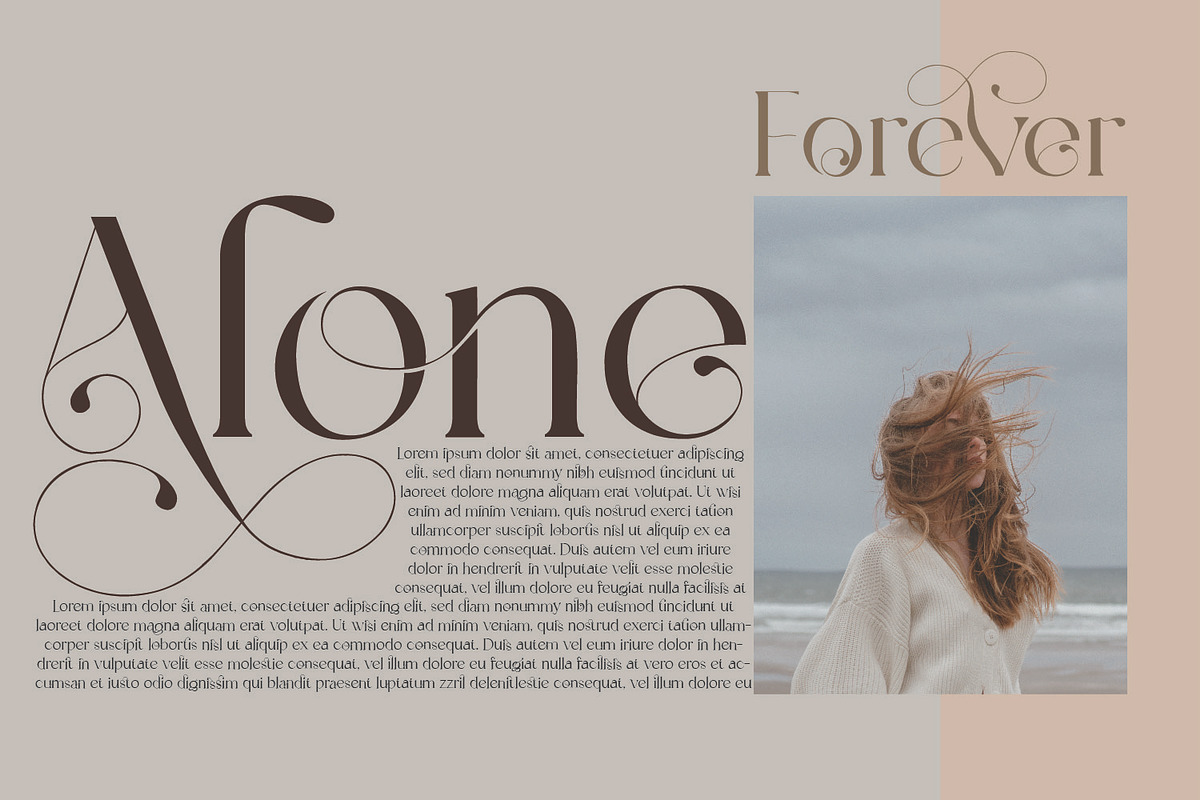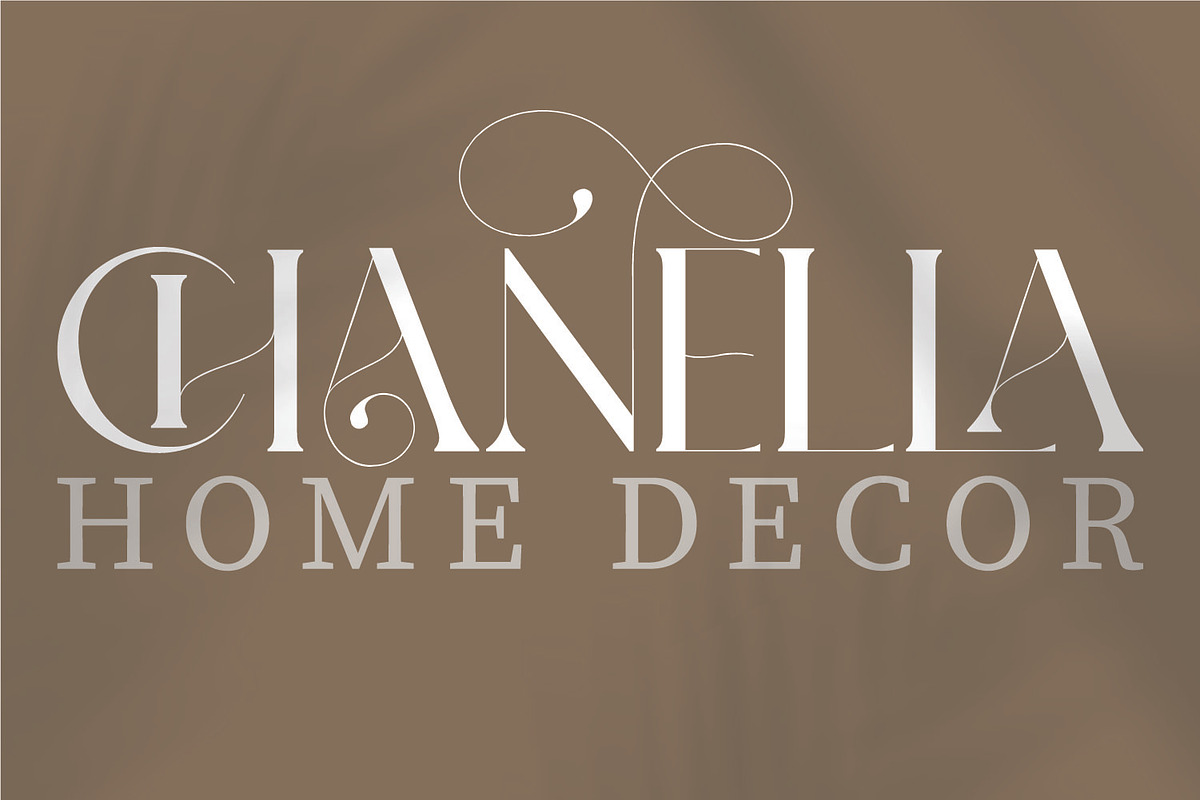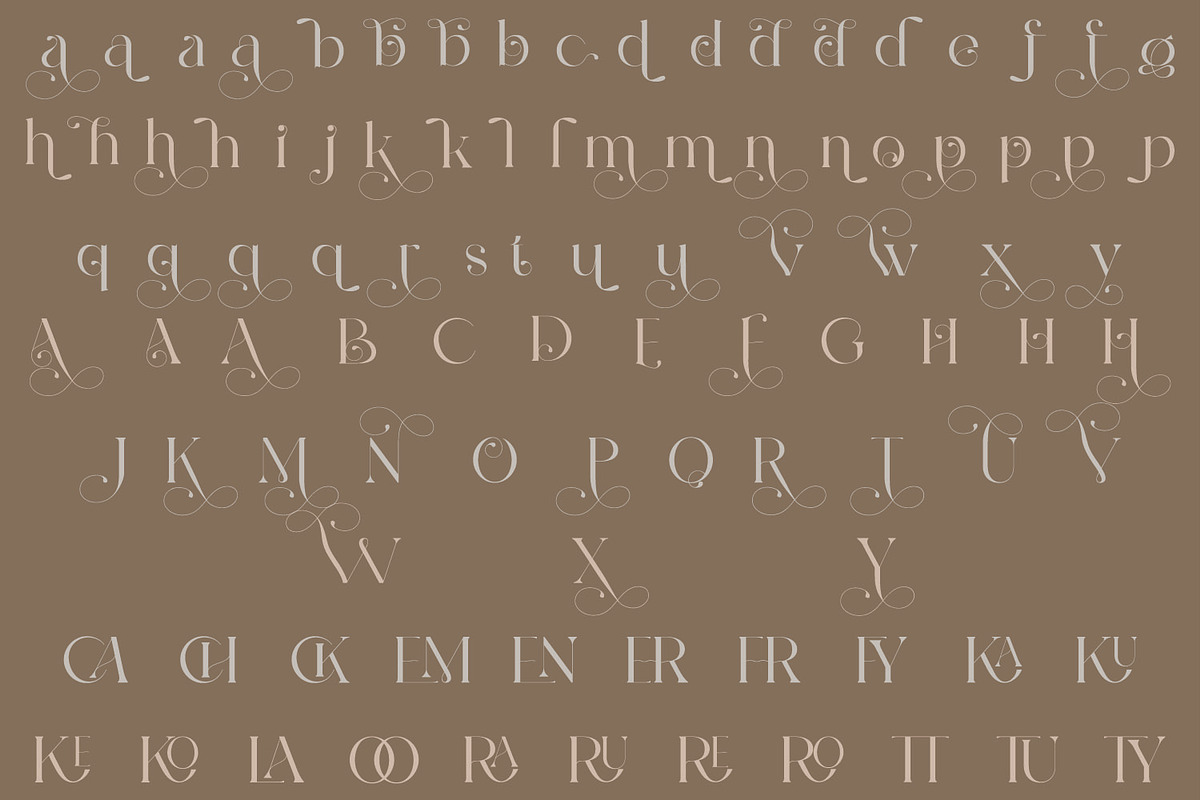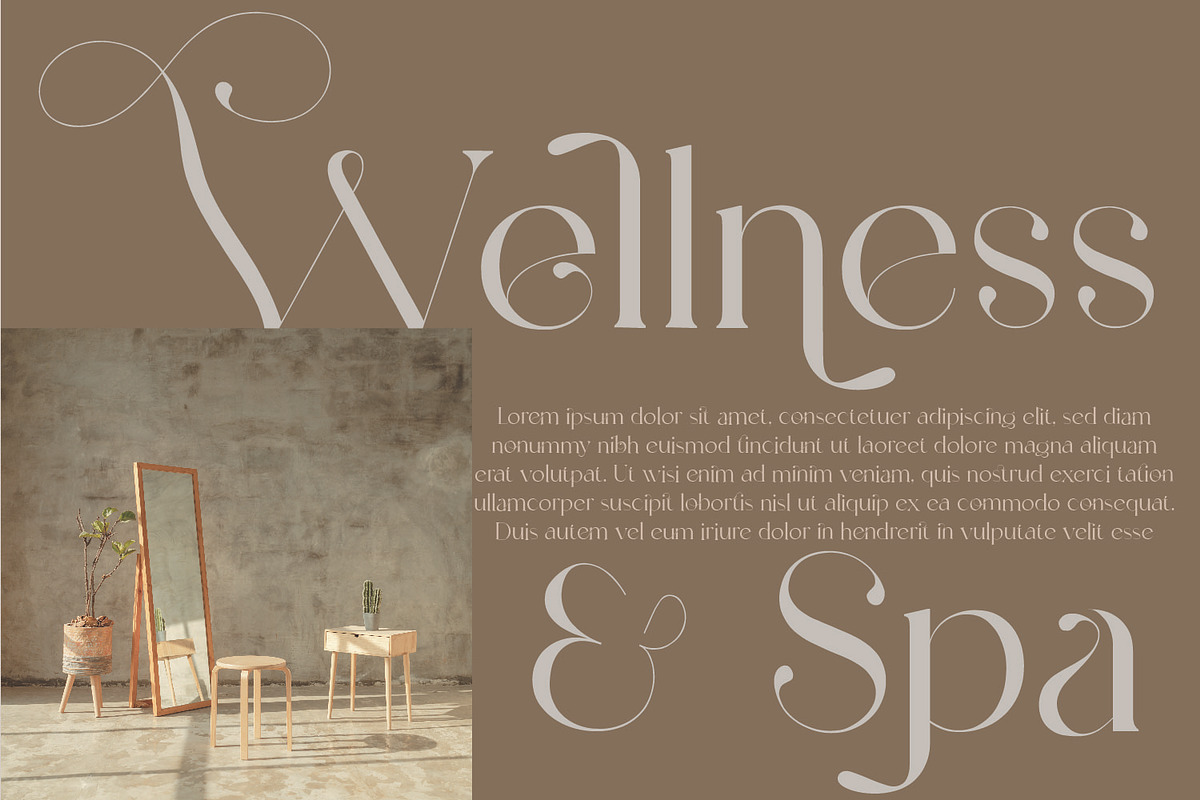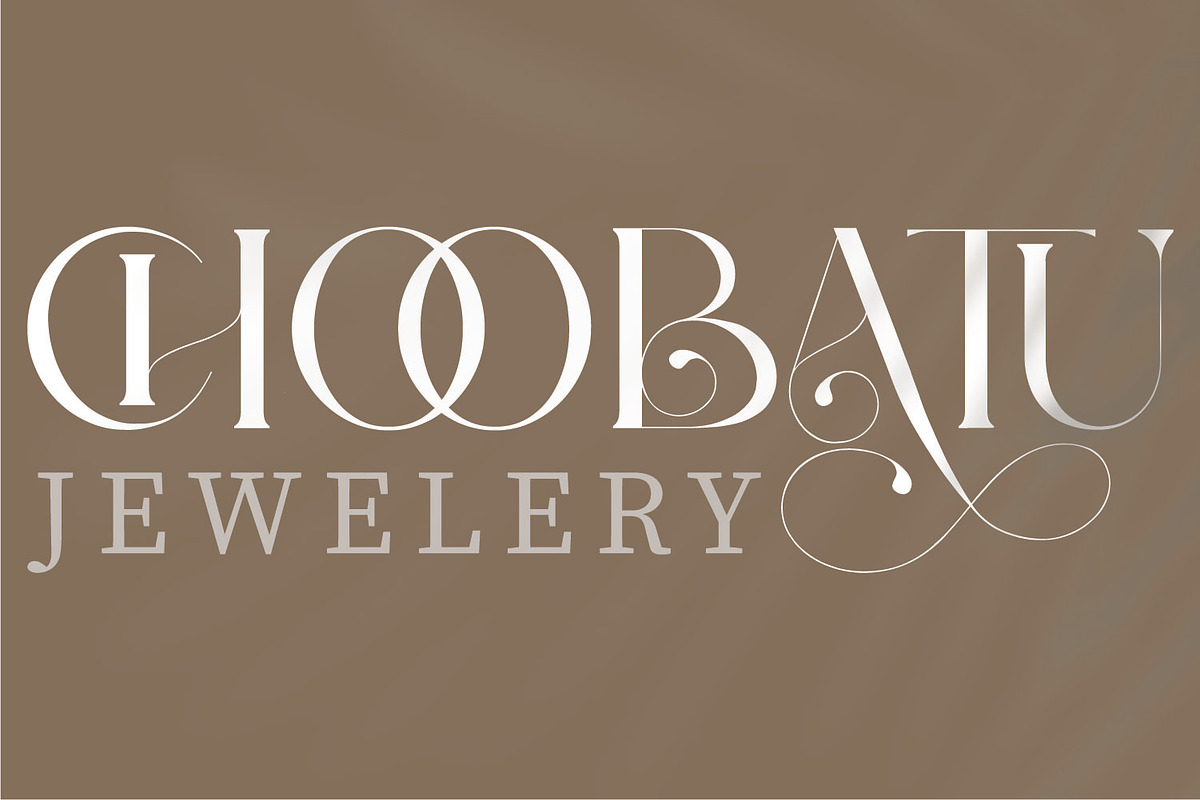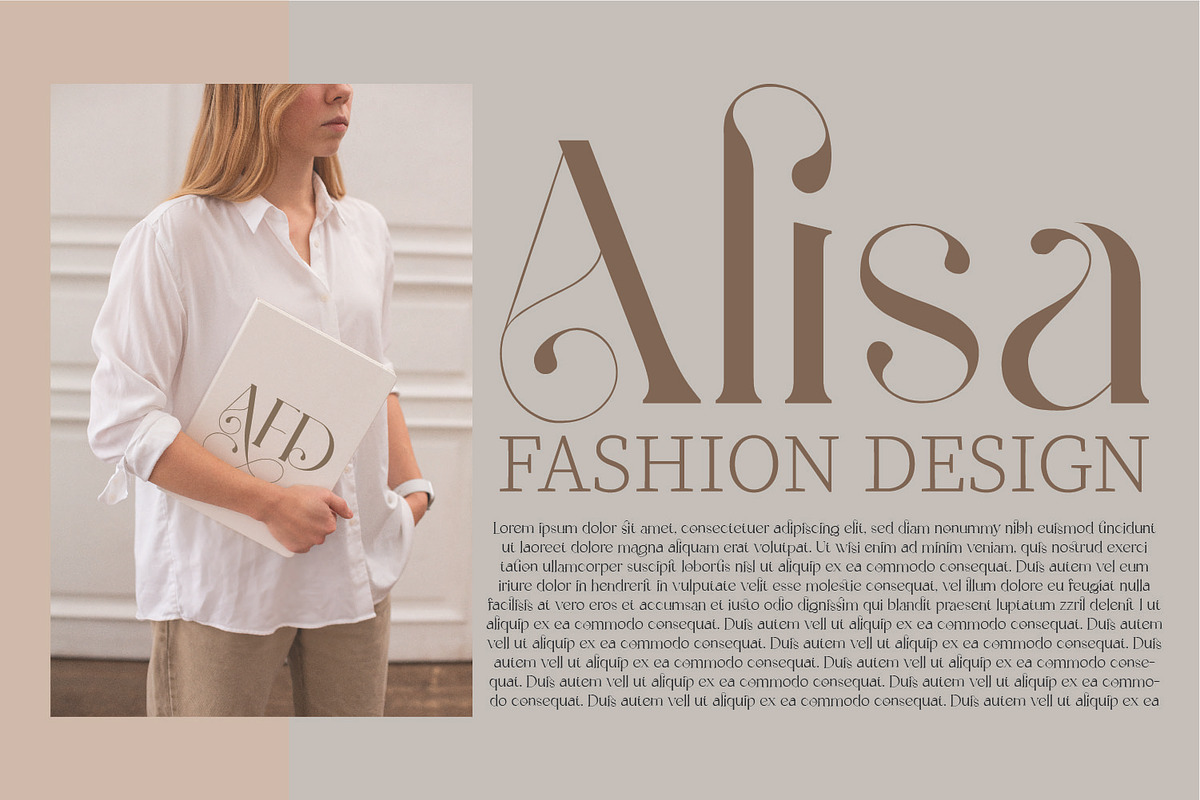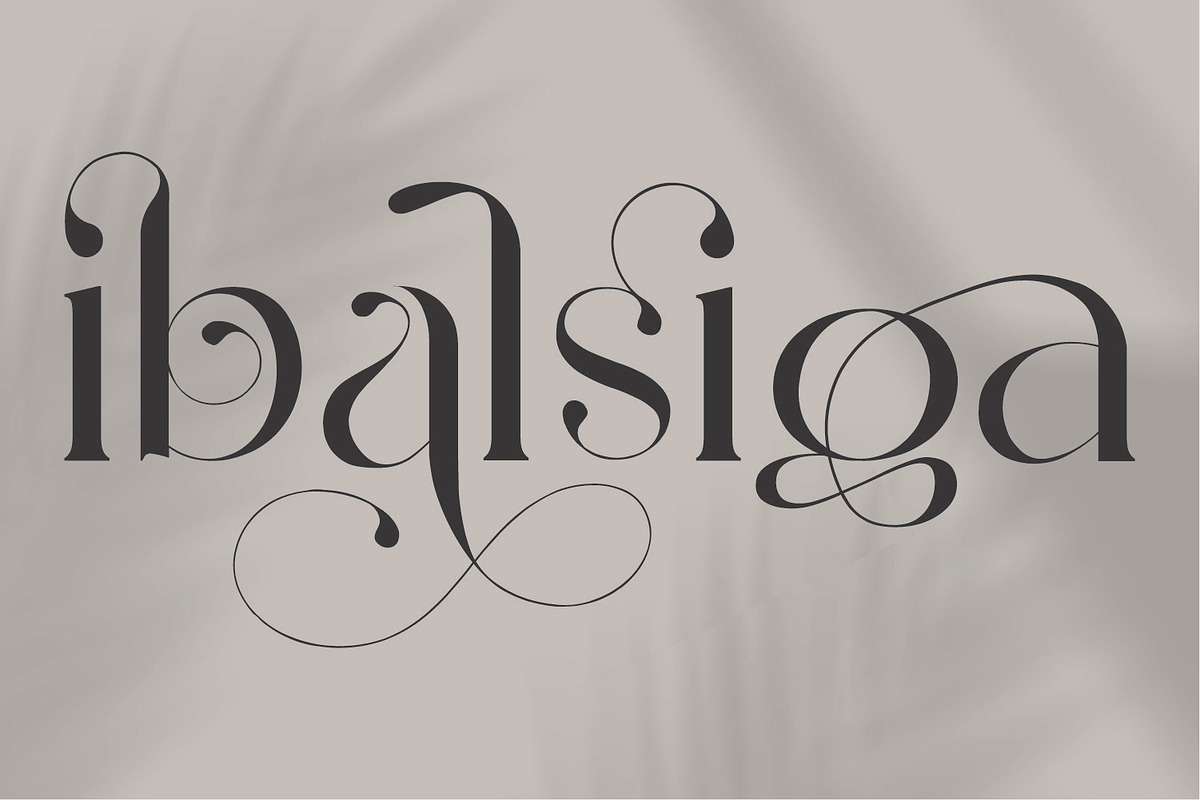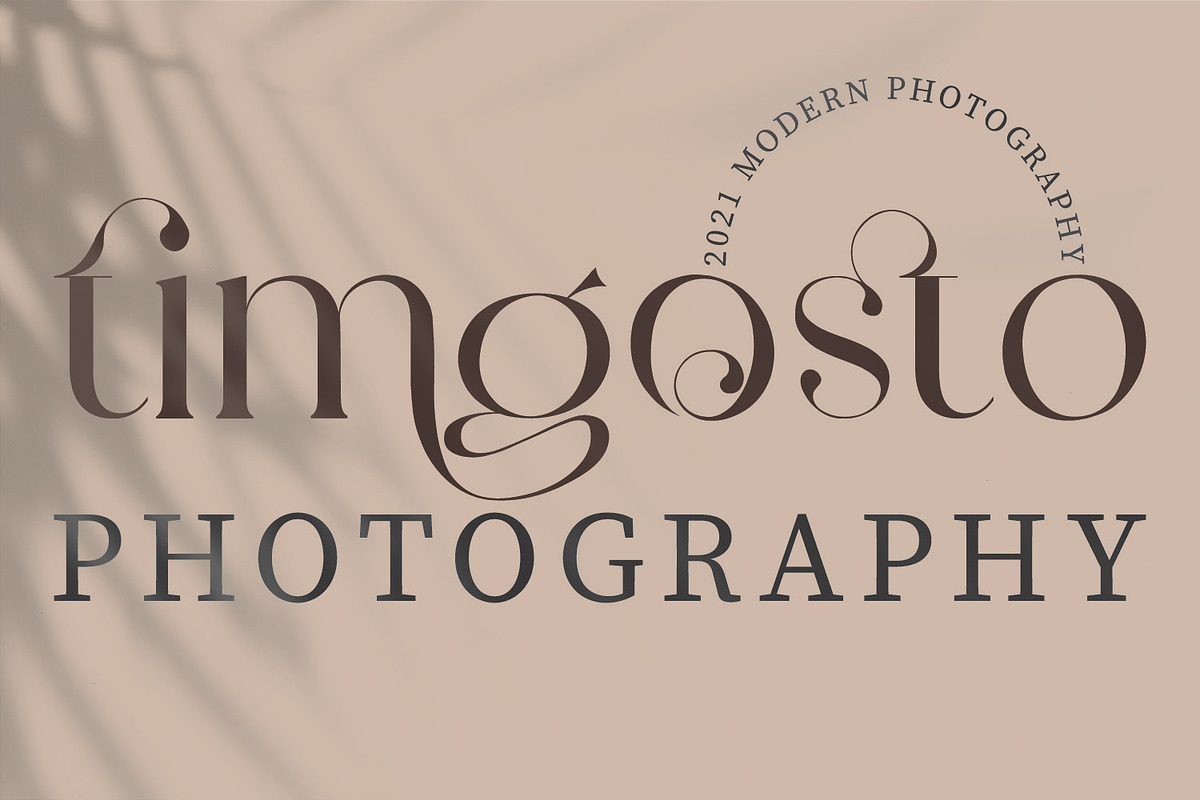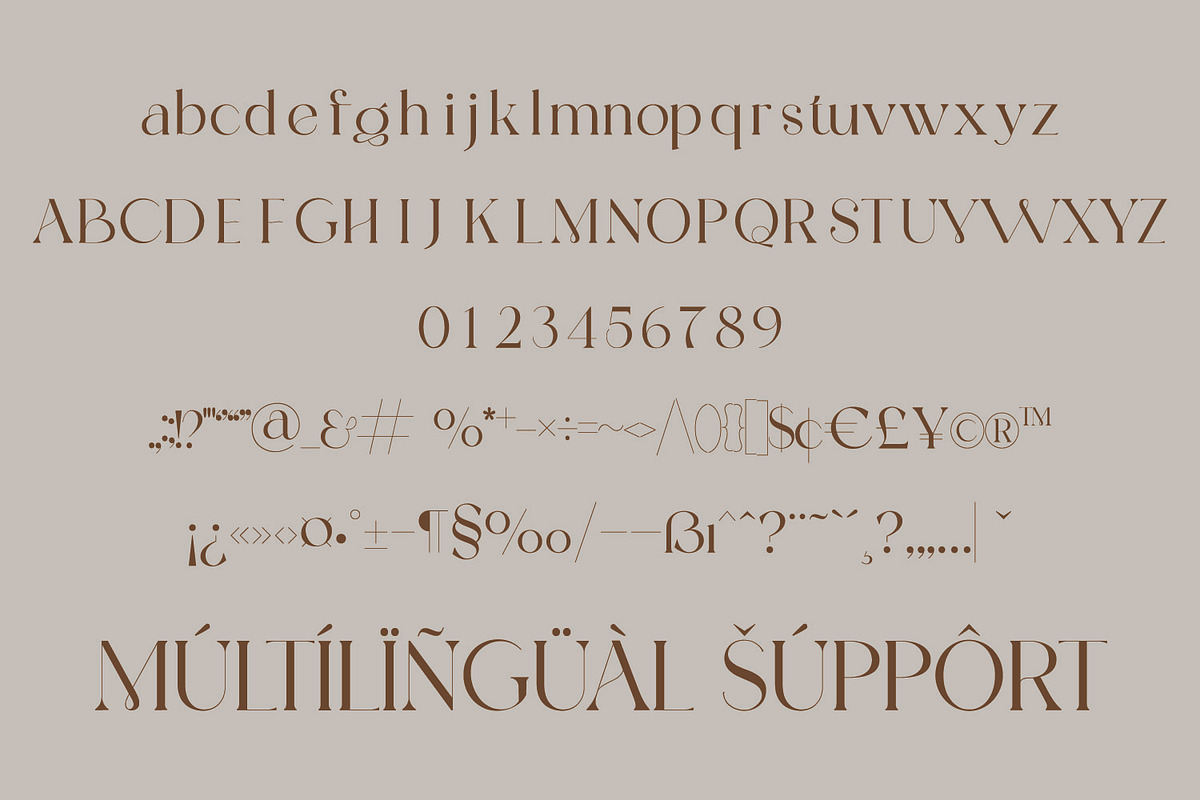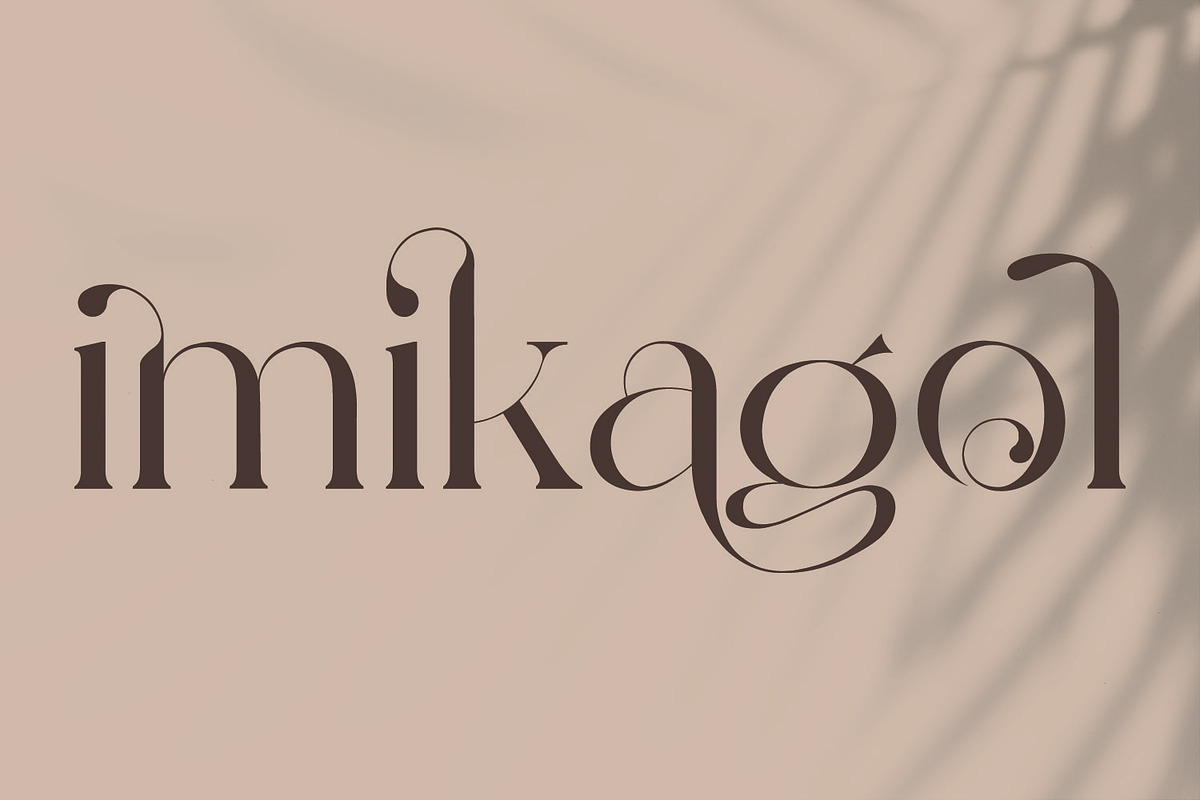
Bibalgoski | Modern Serif Font
Bibalgoski is a Modern Stylistic Serif typeface.
A new serif that we created specially for branding needs, with extra ligatures and alternates in a unique shape just to add value to your brand. It so nice to leverage designer or product owner that need solutions to make their design look more stylish and modern. And specially for Bibalgoski font, We prepared all the ligatures, and the alternates characters to help you create unlimited variations for your creative needs.
Bibalgoski includes:
- All uppercase & lowercase letters
- All numbers 0-9 & Punctuation
- Multiligual Letters